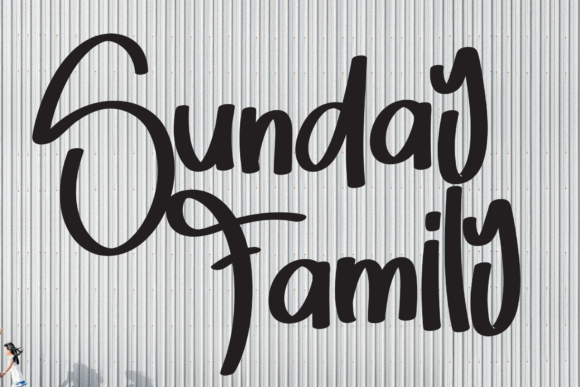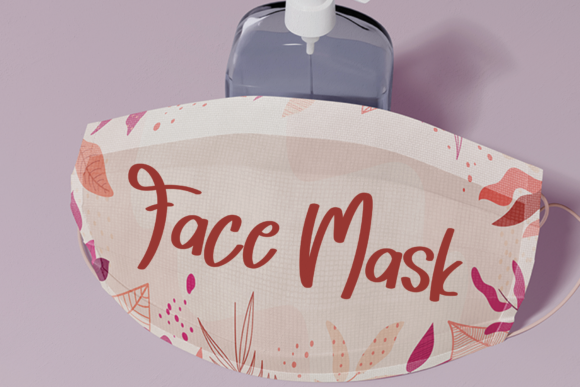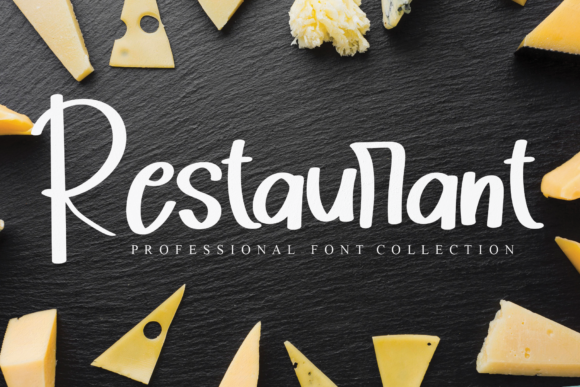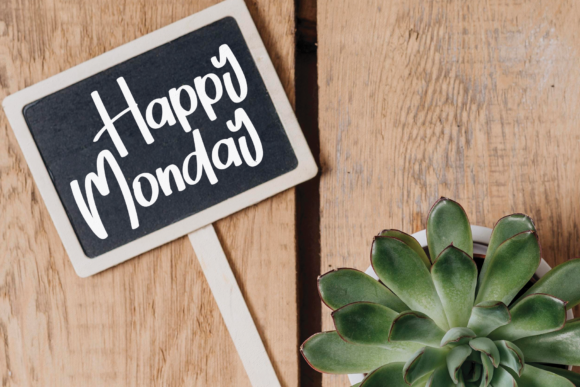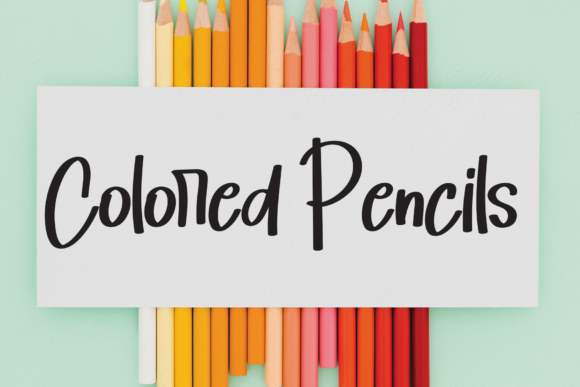
Sunday Family Font
About Sunday Family Font
Sunday Family is a delightful handwritten font mainly characterized by its lovely cursive style! It is perfectly suitable for projects that need a nice, handwritten touch!